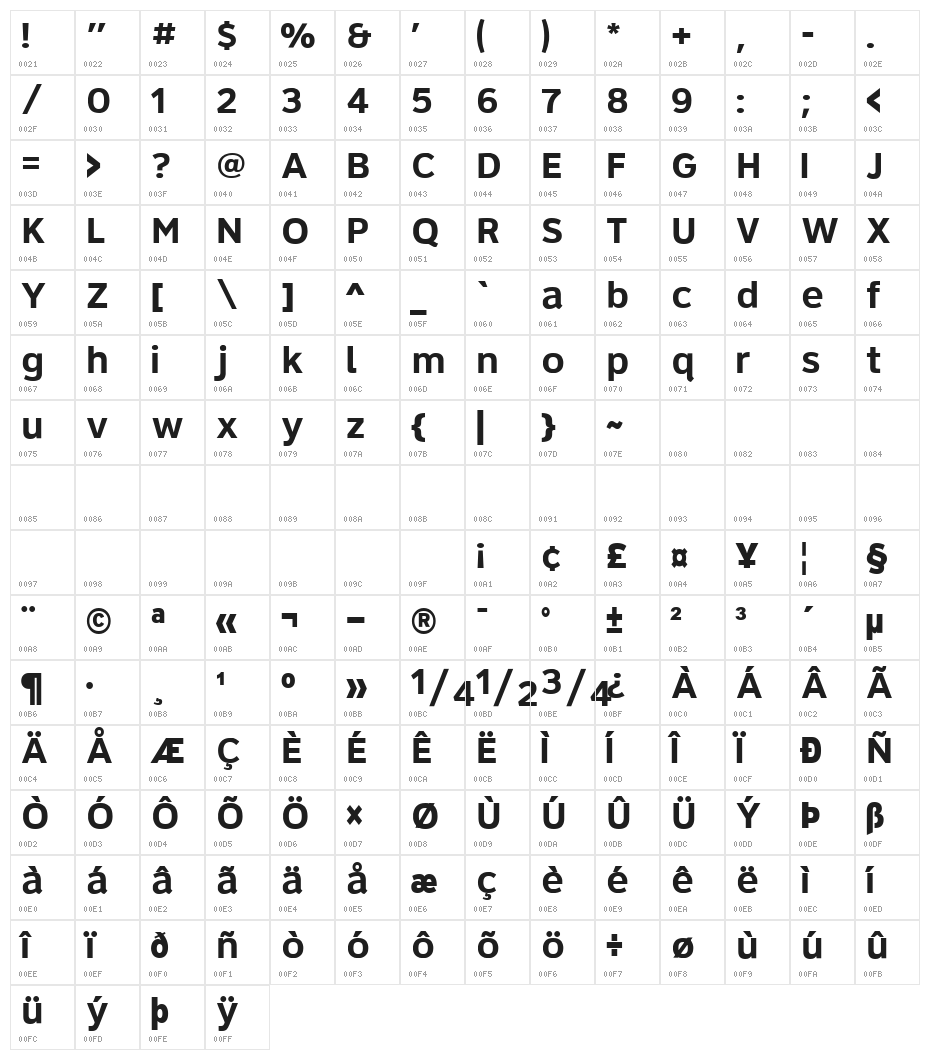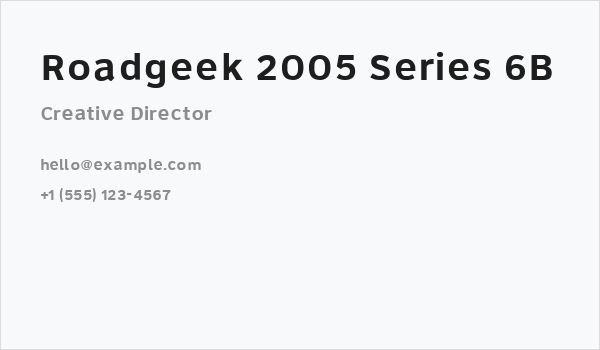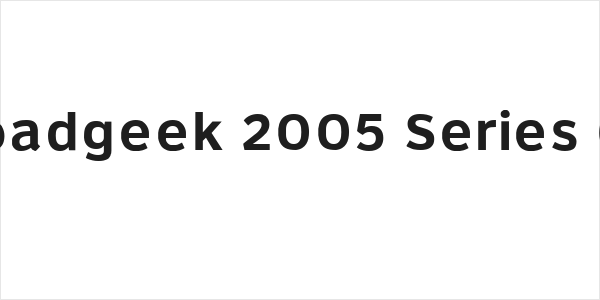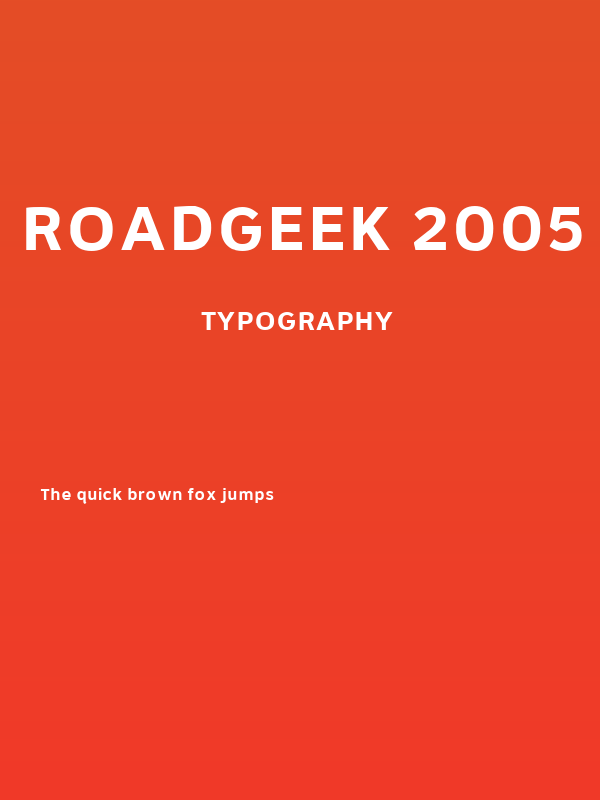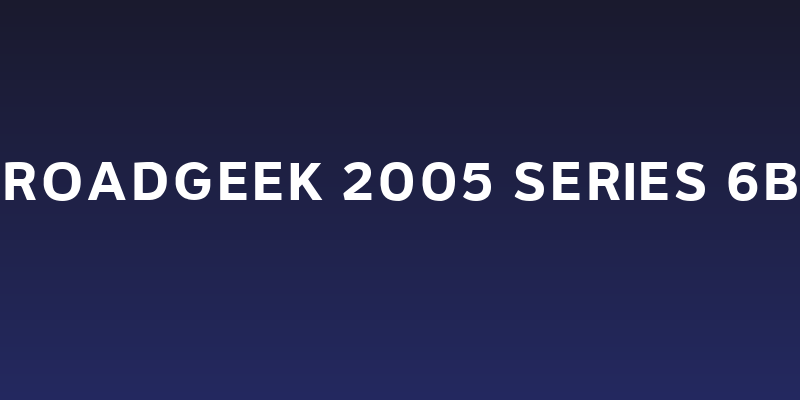
Roadgeek 2005 Series 6B Font
Roadgeek 2005 Series 6B Description
This font features a clean and modern sans-serif design, characterized by its bold and uniform stroke width. The characters are well-balanced with a slightly condensed appearance, making it highly legible at various sizes. The uppercase letters are strong and assertive, while the lowercase letters maintain a consistent and harmonious flow. The numerals are clear and straightforward, ensuring easy readability. Special characters are designed to match the overall aesthetic, providing a cohesive look across all glyphs. This font is versatile and suitable for a wide range of applications.
| Use Case | Headlines, Signage, Branding |
| Proposed Projects | Ideal for signage, branding, headlines, and digital interfaces where clarity and impact are essential. |